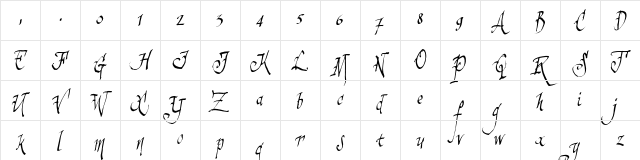
sinisterSam Regular Free Font
sinisterSam Regular
Foundry: J O E B O B graphics
Designer: J O E B O B graphics
Design Context for sinisterSam
sinisterSam is a composed and adaptable typeface that performs quietly and consistently across a wide range of design contexts.